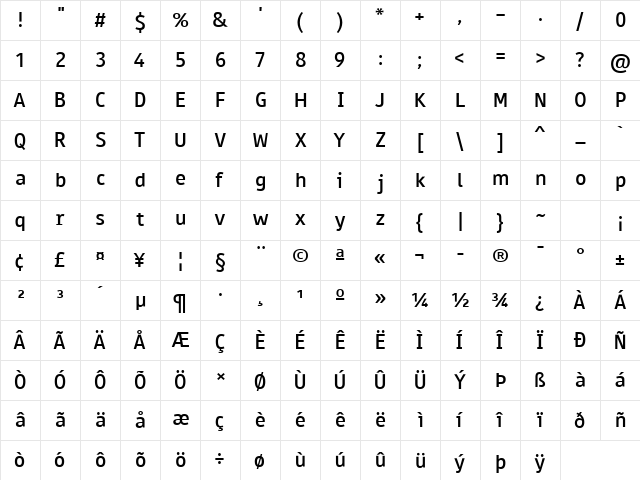
Paneuropa Road Regular
| Foundry | Peter Wiegel |
| Designer | Peter Wiegel |
Design Context for Paneuropa Road Typeface
Paneuropa Road takes a measured approach to typography — its balanced proportions and neutral character make it a reliable workhorse for both digital and print work.